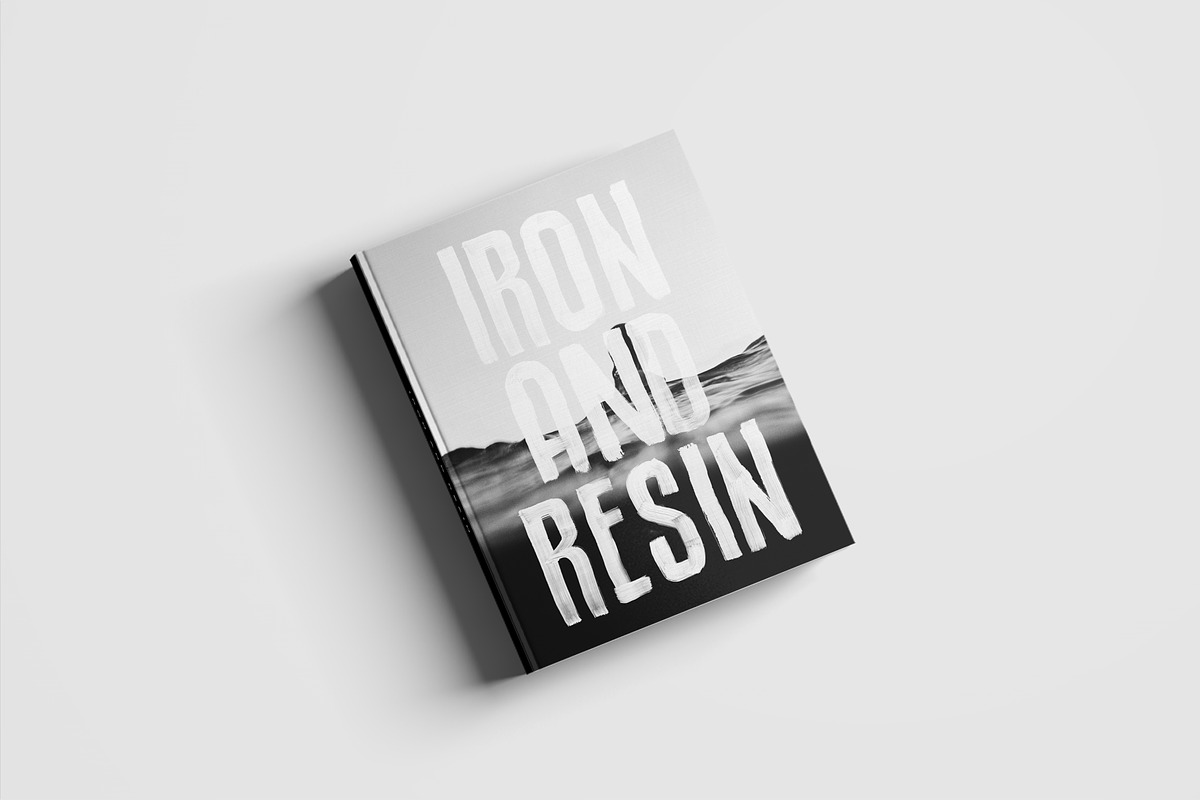
Mr. Poster - SVG Brush Font
Introducing, Mr. Poster — a hand painted brush font that captures all the rich stroke imperfections of an authentic, illustrated typeface. Made using acrylic paint on transparency, its unique characteristics lend itself to bold, punchy type treatments. Great for projects that are looking to achieve a realistic, hand painted feel.
- A-Z upper and lowercase
- numbers
- punctuation
- extra characters (no alternates)
- alternate letters & numbers for a more realistic look
- a third traditional vector font that is striped down to be used with a wider variety of applications like Word, etc. (no alternates)